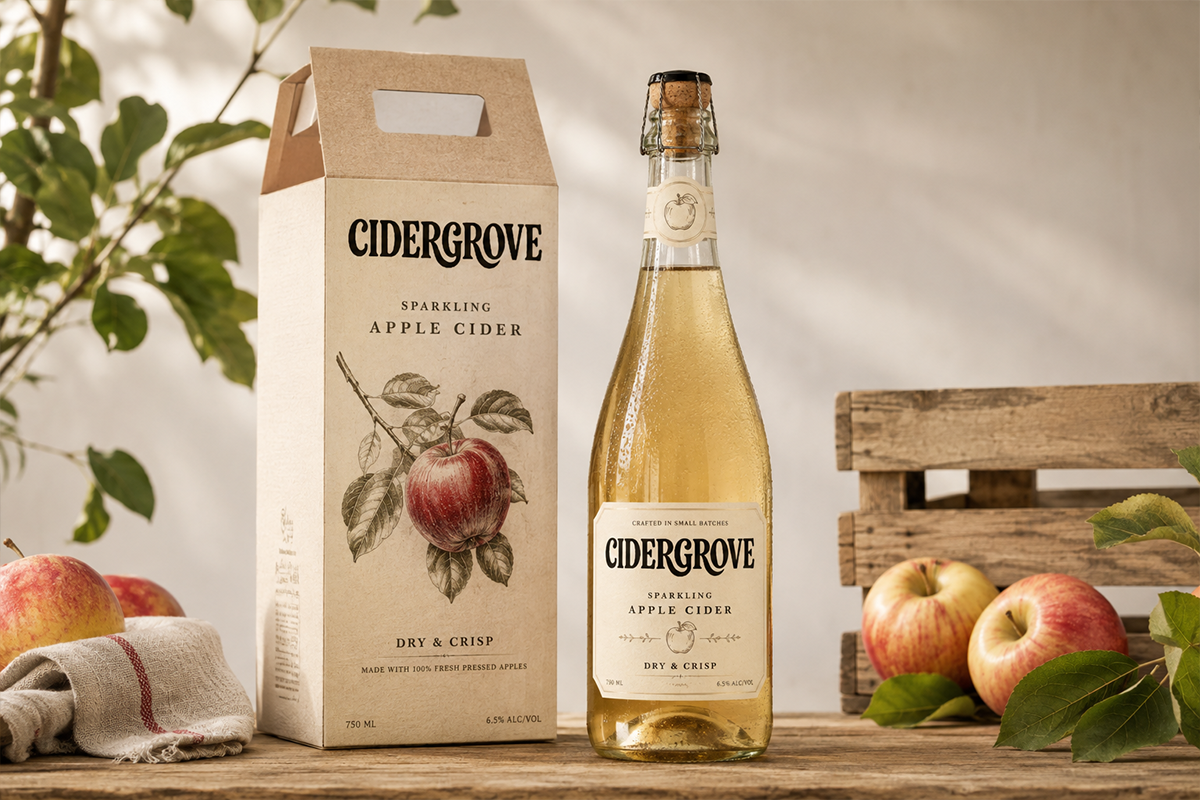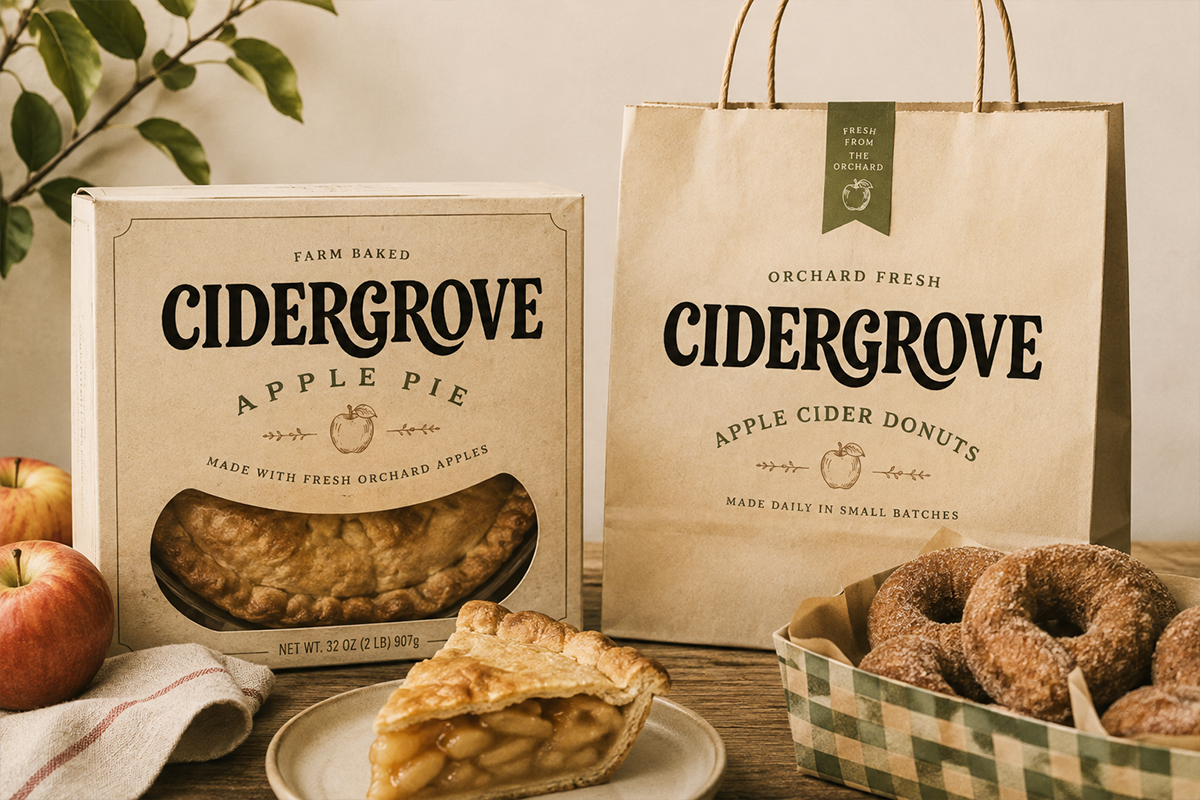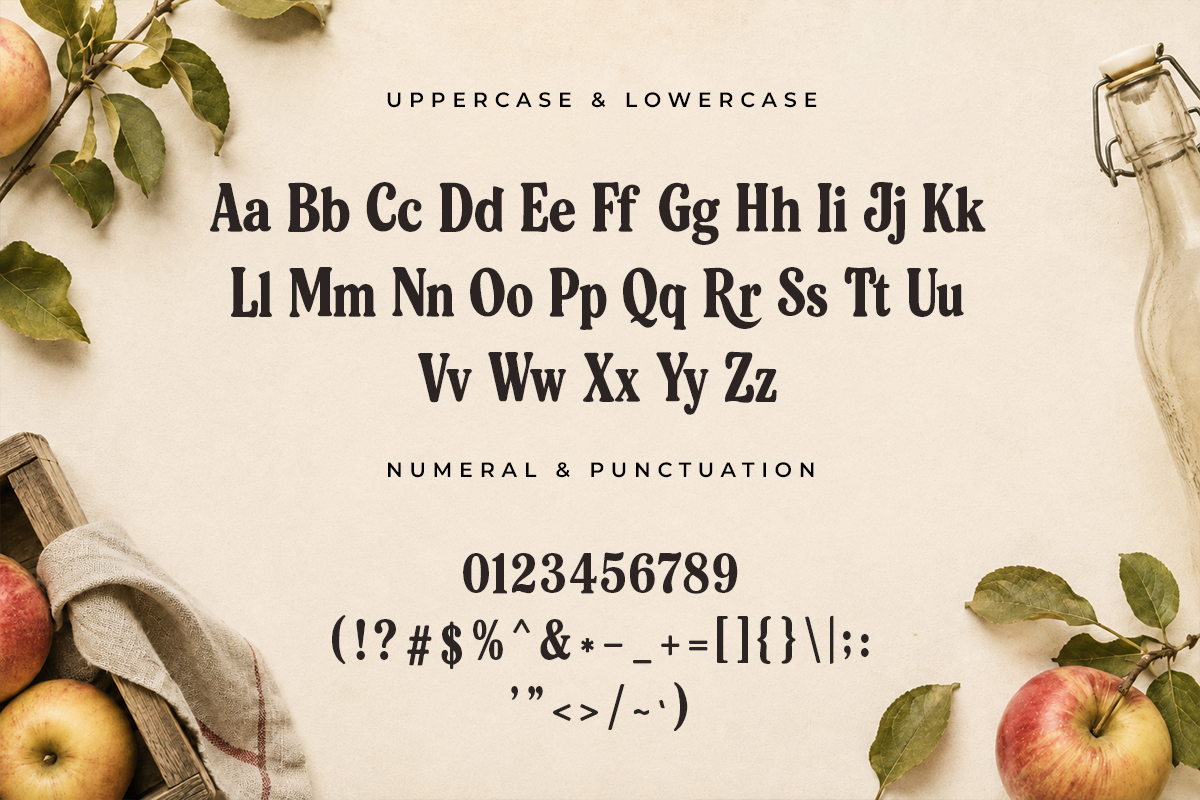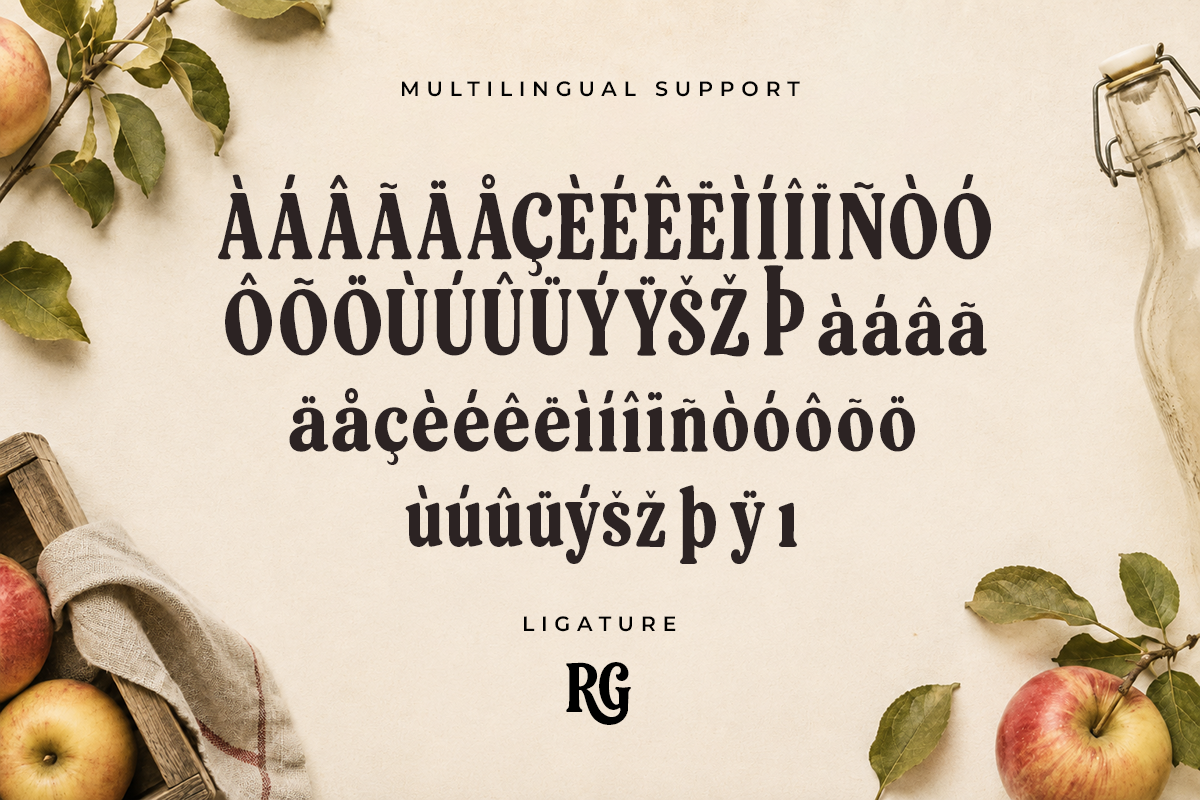
Cidergrove is a rustic vintage display font inspired by cozy countryside charm, traditional orchard signage, and timeless handcrafted design. With its bold serif shapes, smooth curves, and nostalgic character, this typeface brings warmth and personality to any creative project.
Perfect for farmhouse branding, cider and beverage labels, food packaging, restaurant menus, vintage posters, logos, product labels, apparel, invitations, and seasonal autumn designs.